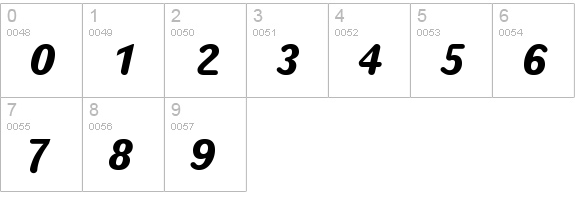
UlissaRounded-BoldItalic Font Details
UlissaRounded-BoldItalic is a bold and stylish font that adds a touch of sophistication and elegance to any design project. With its sleek curves and italicized form, this font exudes a sense of modernity and creativity. Whether you're designing a logo, creating a poster, or crafting a professional presentation, UlissaRounded-BoldItalic is the perfect choice to make your text stand out. This font is not only visually striking but also versatile, making it suitable for a wide range of applications. Its bold weight commands attention, while the rounded corners soften the overall look, creating a harmonious balance between strength and gentleness. The italicized style adds a dynamic and expressive touch, allowing your words to flow gracefully across the page. What makes UlissaRounded-BoldItalic even more enticing is that it is available for free. Yes, you read it right – this exceptional font can be freely downloaded at FontsMarket.com. This means that you can enhance your designs without breaking the bank, making it an ideal choice for both personal and commercial projects. When it comes to legibility, UlissaRounded-BoldItalic excels. The carefully crafted letterforms ensure that each character is easily distinguishable, even at smaller sizes. This makes it a reliable choice for body text, headlines, or any other text element where clarity is paramount. Whether you're aiming for a professional and polished look or a more playful and whimsical vibe, UlissaRounded-BoldItalic has got you covered. Its versatility and modern aesthetic make it a valuable asset in any designer's toolkit. So why wait? Head over to FontsMarket.com and download UlissaRounded-BoldItalic today to elevate your designs to new heights.